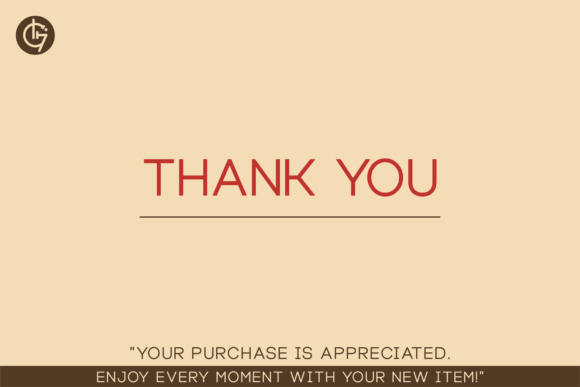
Adding the Finishing Touches with Garnish Font
As designers, we’ve all been there – staring at a blank canvas, trying to find the perfect combination of words and visuals to convey our message. It’s the moment when a well-chosen font can make all the difference. And that’s where Garnish Font comes in – a modern sans serif typeface designed to make a statement.
Garnish Font is more than just a font – it’s a tool that helps you create professional, impactful designs that demand attention. With its clean lines and minimalist aesthetic, it’s perfect for logos, websites, print materials, and anything in between. Whether you’re working on a high-end branding project or a digital interface, Garnish Font is the perfect addition to your design toolkit.
So why is Garnish Font so valuable for designers? Simply put, it’s because it’s versatile, readable, and bold – making it ideal for both large-scale headlines and smaller text blocks. With Garnish Font, you can create designs that truly shine.
Garnish Font Key Features
- Font Family: Garnish Font is a sans-serif font family designed for digital and print use.
- Character Set: Supports a wide range of languages, including Latin, Cyrillic, and Greek scripts, making it suitable for global designs.
- Weight and Style: Offers a range of weights (Thin, Light, Regular, Medium, Bold, Black) and styles (Italic, Oblique), providing flexibility for various design applications.
- Unique Characteristics: Garnish Font features a clean, modern design with subtle rounded edges and a balanced x-height, making it suitable for corporate identities, digital products, and editorial content.
Garnish Font Review
Overall, I think Garnish Font is a decent option for designers looking for a unique, elegant font. Here are some of its strengths and weaknesses.
- Highly legible, making it perfect for body text or headlines.
- Beautifully crafted curves and lines create a sophisticated look.
- Supports a wide range of languages, making it a great option for global projects.
- Available in multiple weights, from light to bold, giving designers flexibility.
- May not be suitable for bold or attention-grabbing headlines due to its elegant, refined nature.
- Lack of contrast between light and dark versions can make it difficult to read in certain contexts.
- No italics or oblique versions available, which may limit its use in specific design scenarios.
Garnish Font is a solid choice for designers who want a high-end, elegant look without the hefty price tag. While it has some limitations, its strengths make it a great option for projects where subtlety and sophistication are key.
The Garnish Font is ideal for use in creative and design-focused projects, such as:
- Event and conference materials
- Magazine and newspaper headlines